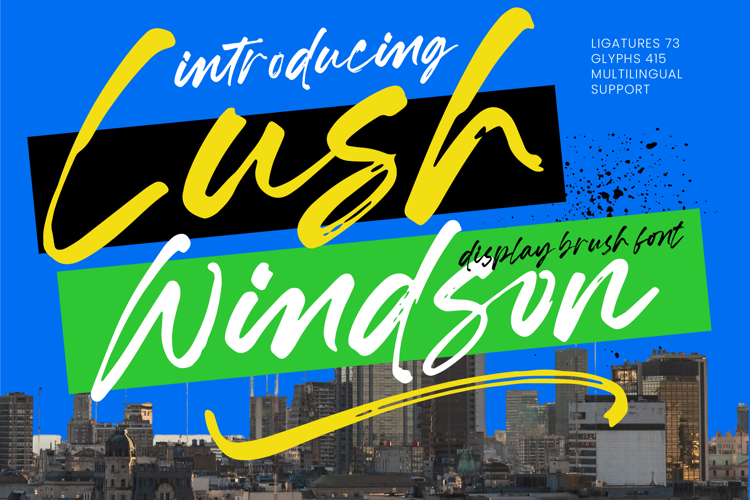
Lush Windson Font
Lush Windson - Display Brush Font
Unleash the power of raw, handwritten energy with Lush Windson - Display Brush Font. This expressive brush typeface captures a sense of urban movement and authentic texture, making it an essential tool for designers seeking to make a bold statement. Its fluid strokes and organic rhythm create an impactful visual identity that demands attention in any commercial design or digital media environment.
Elevate your creative projects to new heights with a typeface designed for maximum impact. Lush Windson - Display Brush Font is the perfect choice for luxury branding, high-end packaging, and dynamic street-style apparel. It excels in social media marketing and editorial layouts, providing a premium aesthetic that resonates with modern audiences looking for originality and edge.